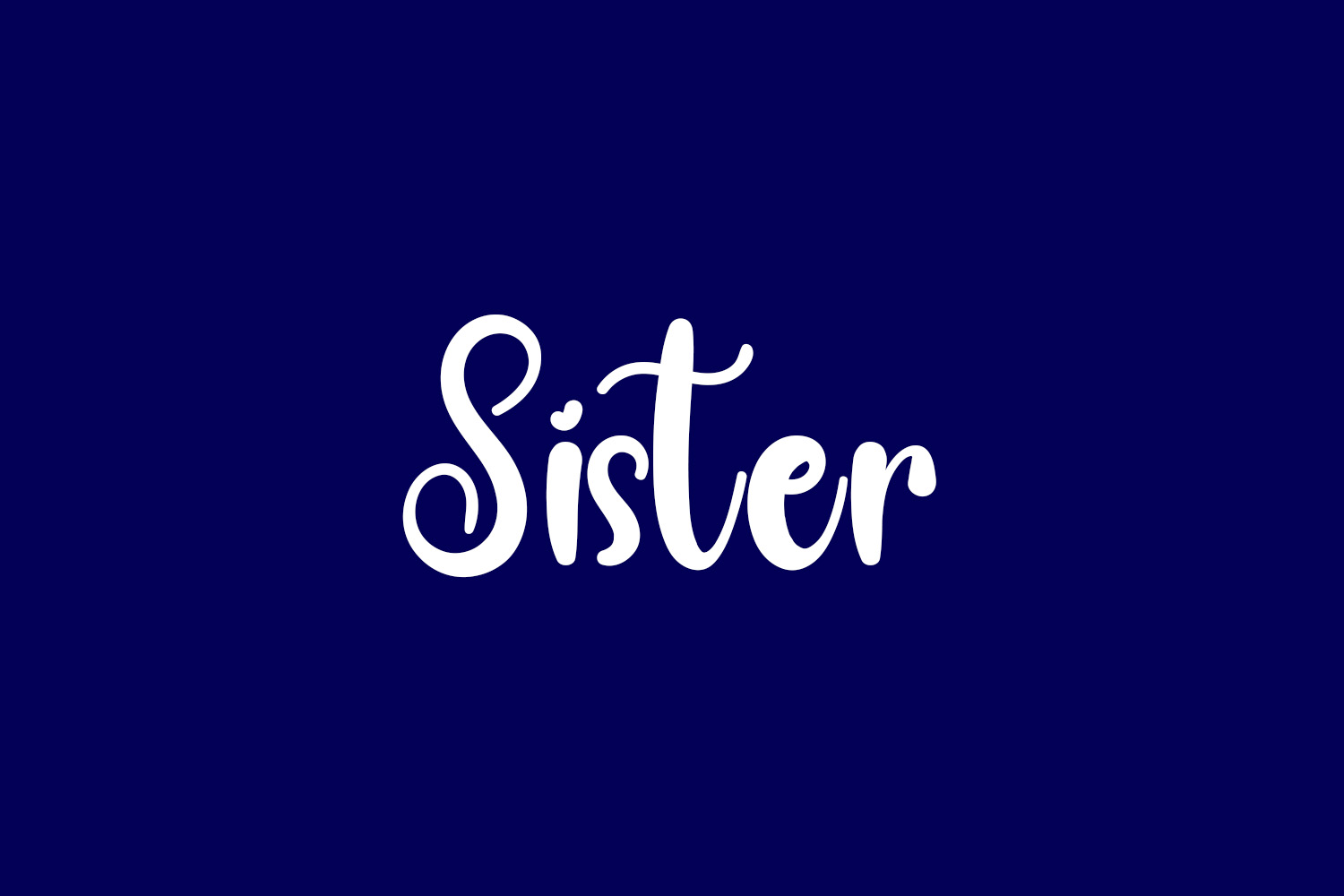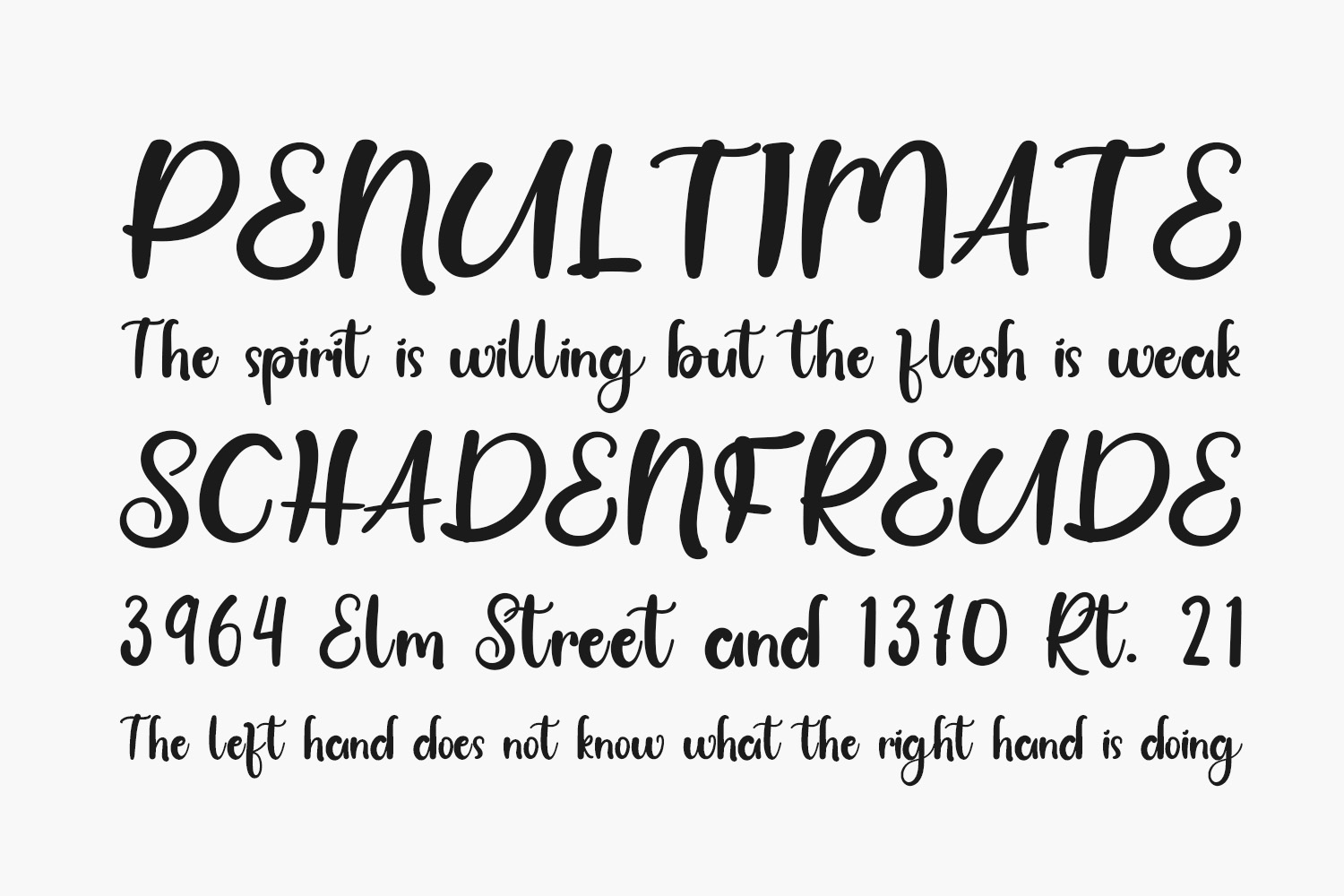
Sister Free Font is an exquisite and charming handwritten font exuding an elegant flair, is tailor-made for your cherished projects. Embrace its uniquely refined and enduring aesthetic to craft magnificent designs that captivate hearts. Sister Free Font is free for personal use only. Please purchase the full version for commercial use.
Designed by PiPi Creative